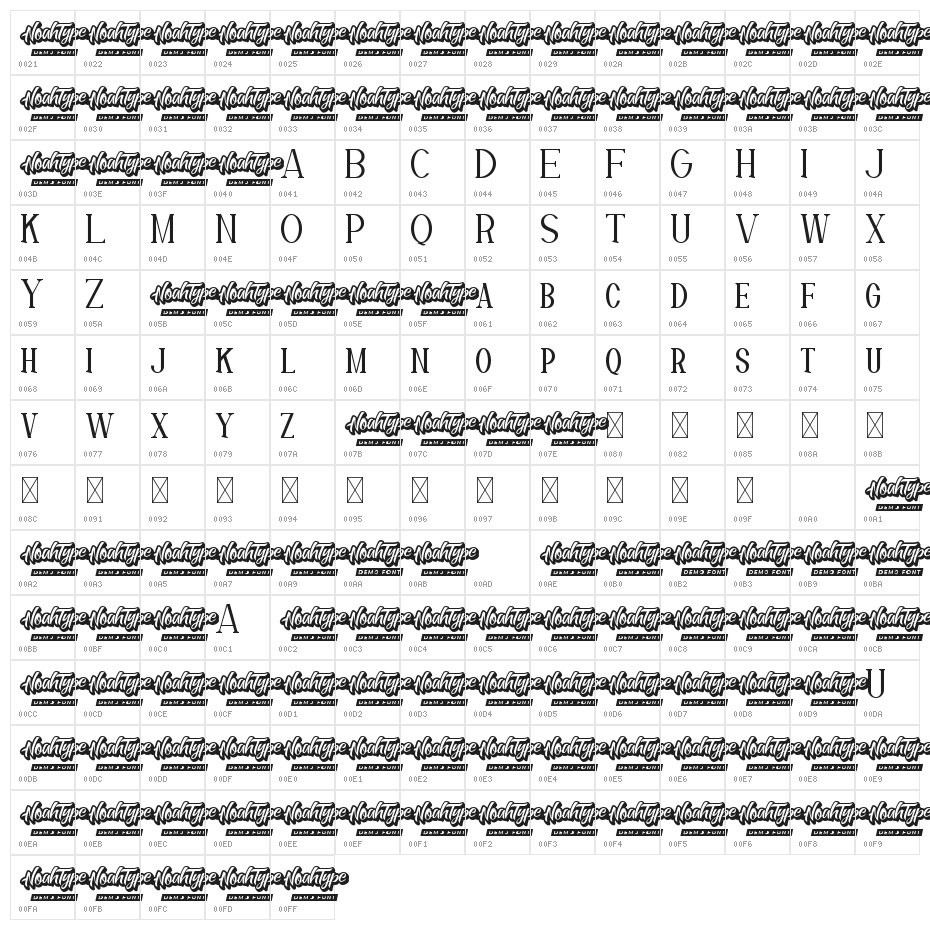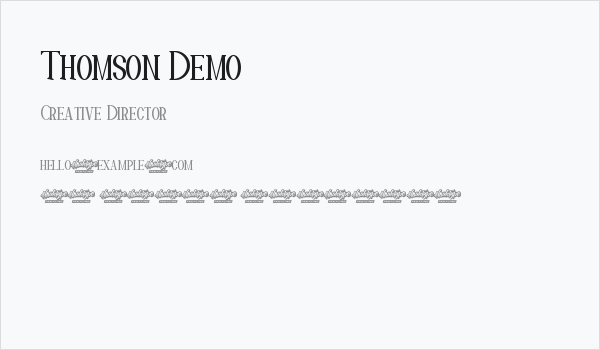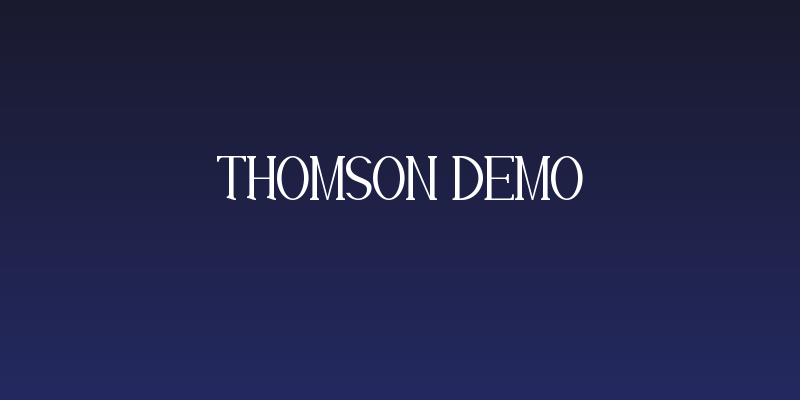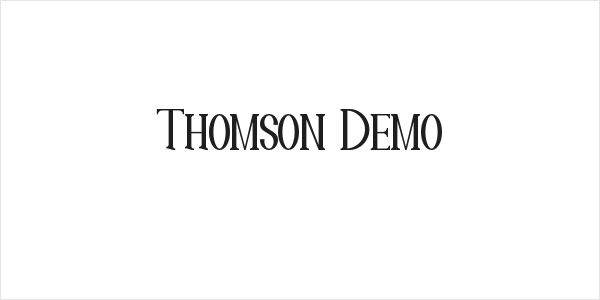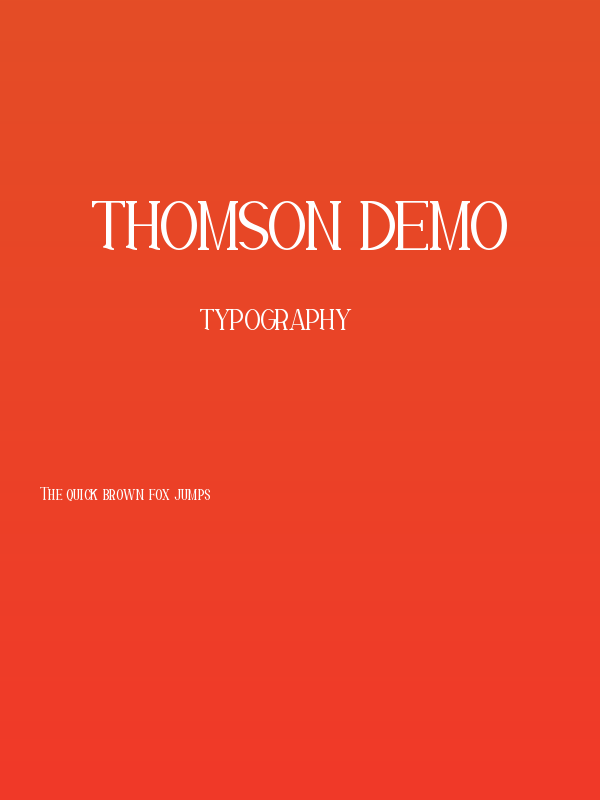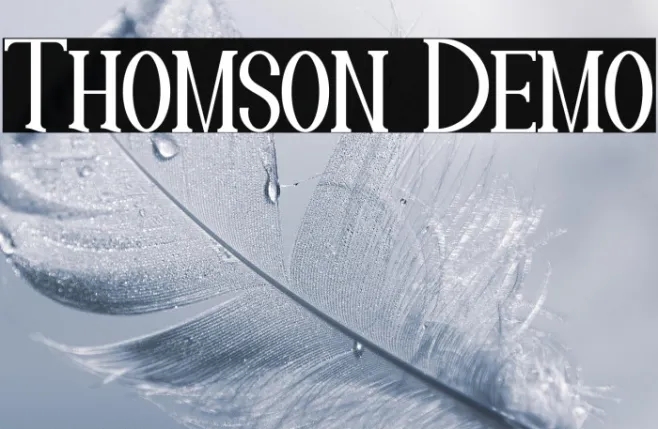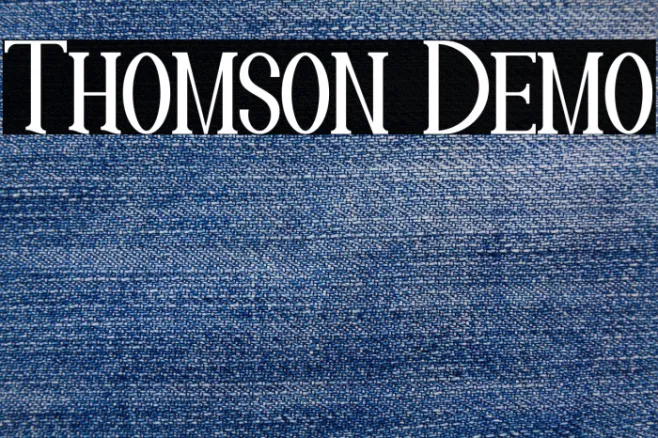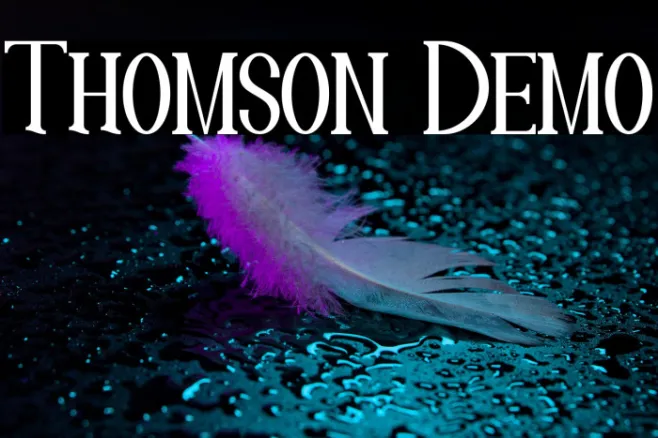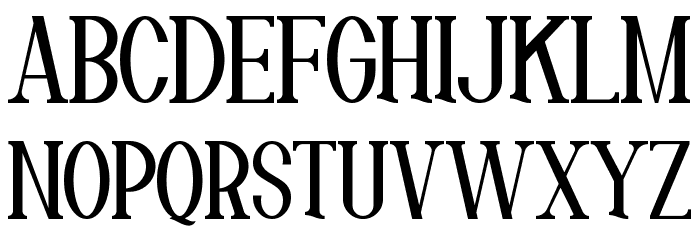
Thomson Demo Font
Thomson Demo Description
This font exhibits a classic serif style with elegant, elongated strokes and a slightly condensed appearance. The serifs are pronounced, adding a touch of sophistication and formality. The uppercase letters are tall and commanding, while the lowercase letters maintain a consistent height, ensuring readability. The overall design is balanced, with a medium contrast between thick and thin strokes, giving it a timeless appeal. This font is versatile, suitable for both digital and print media, and can be used to convey a sense of tradition and reliability.
| Proposed Projects | Ideal for book covers, formal invitations, editorial layouts, and branding materials. |